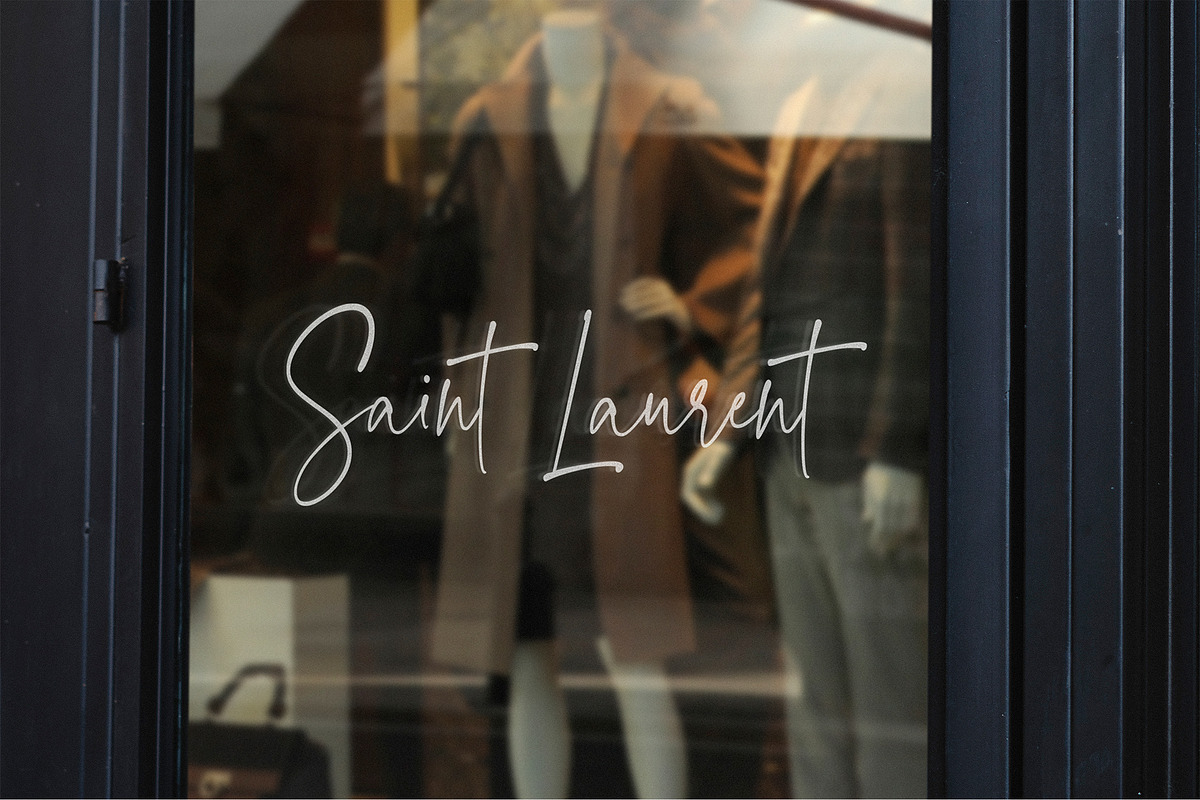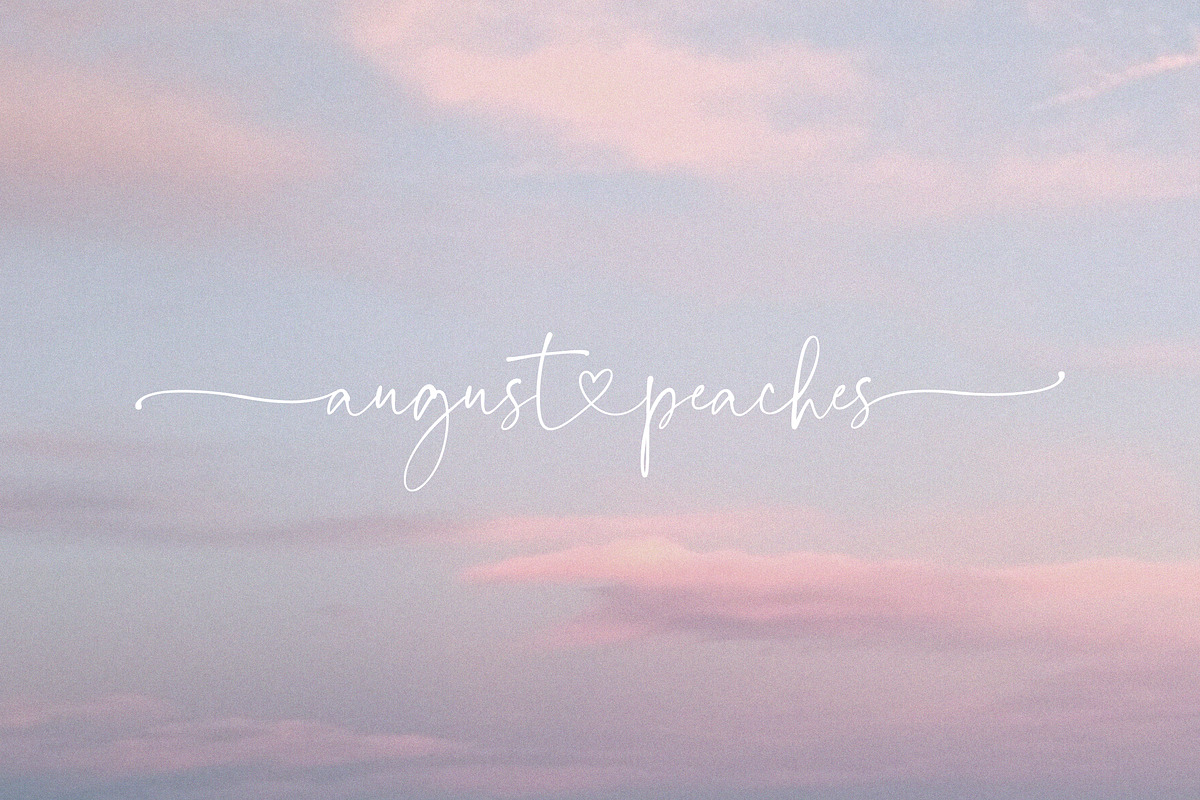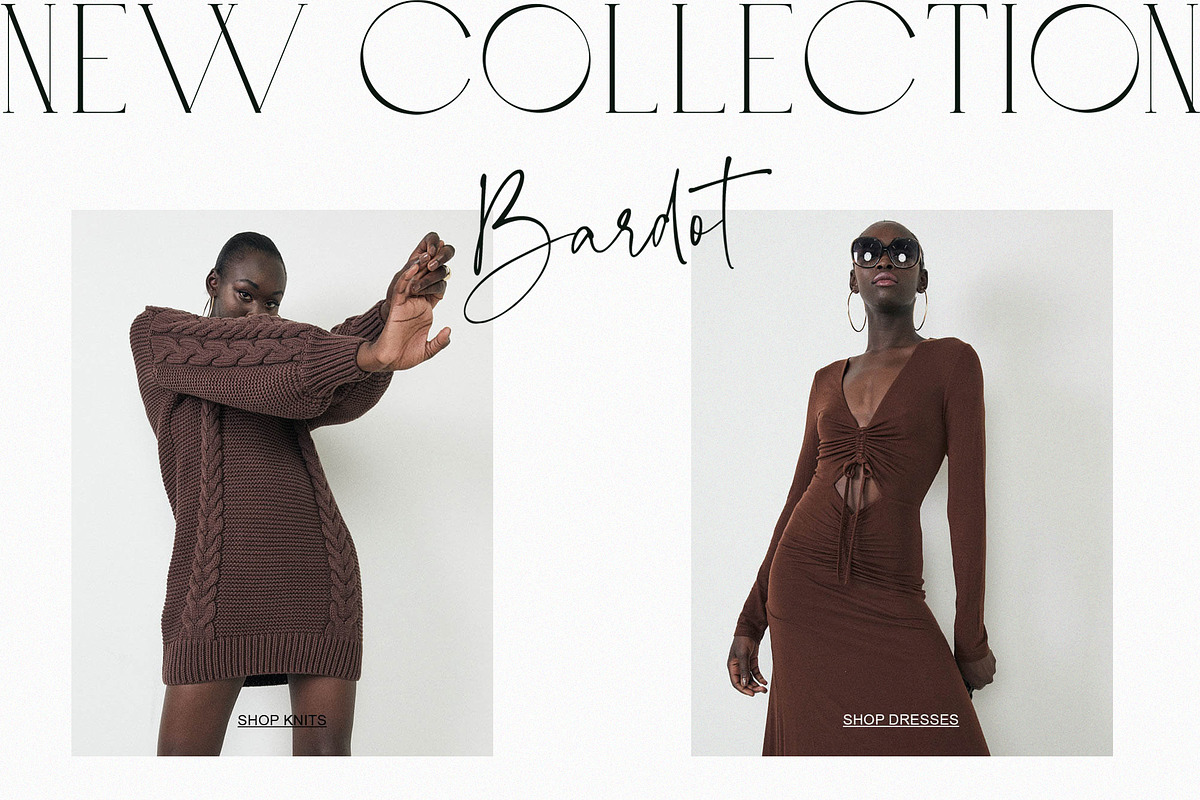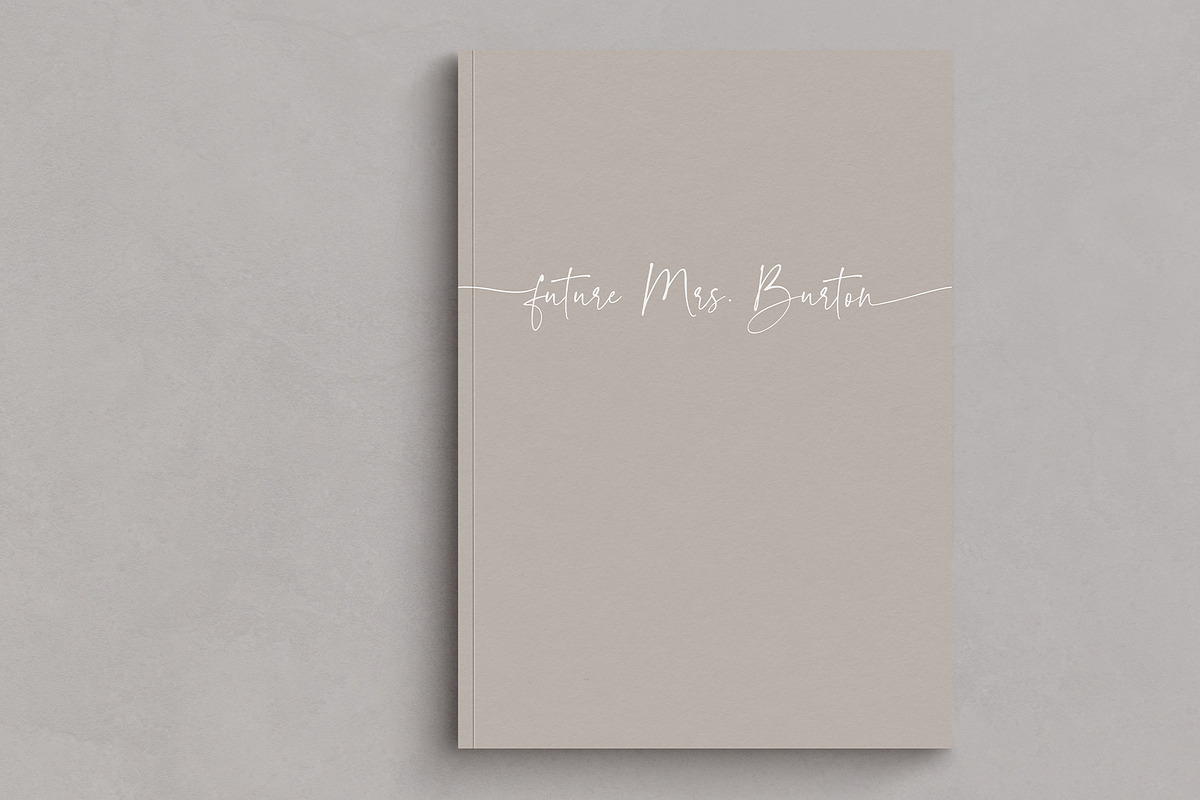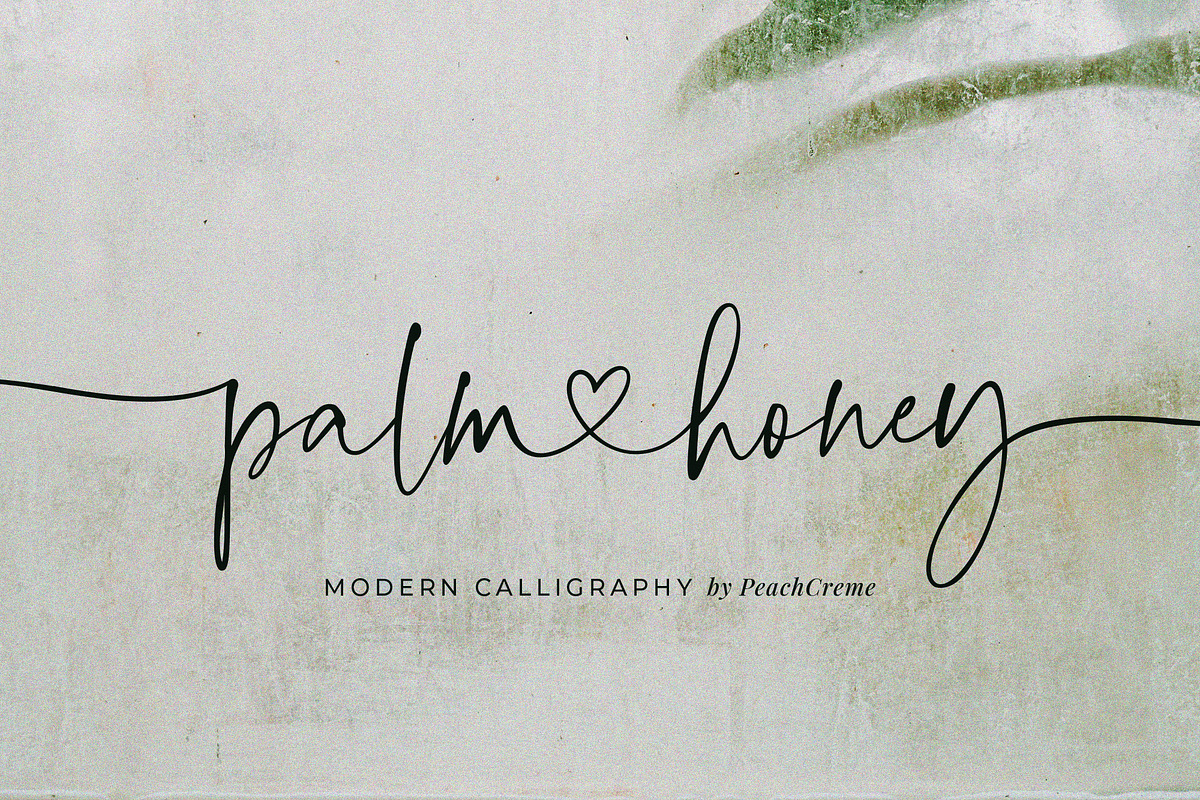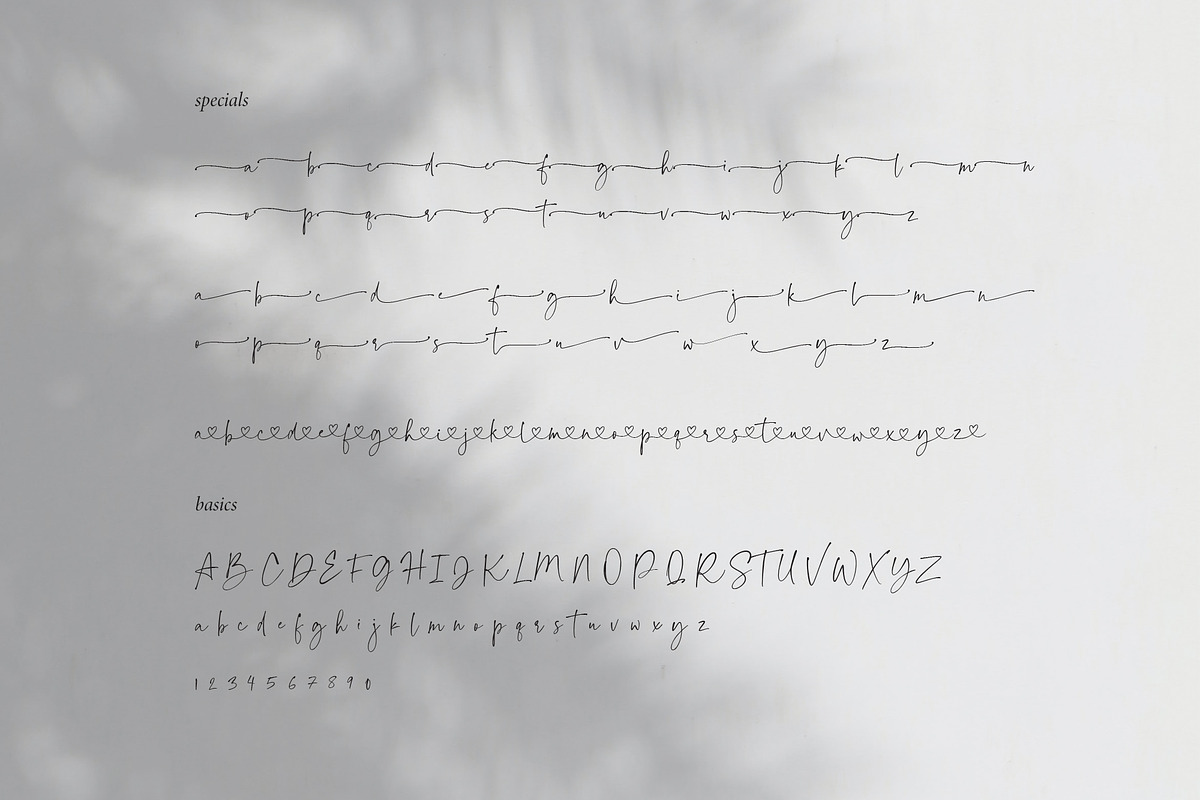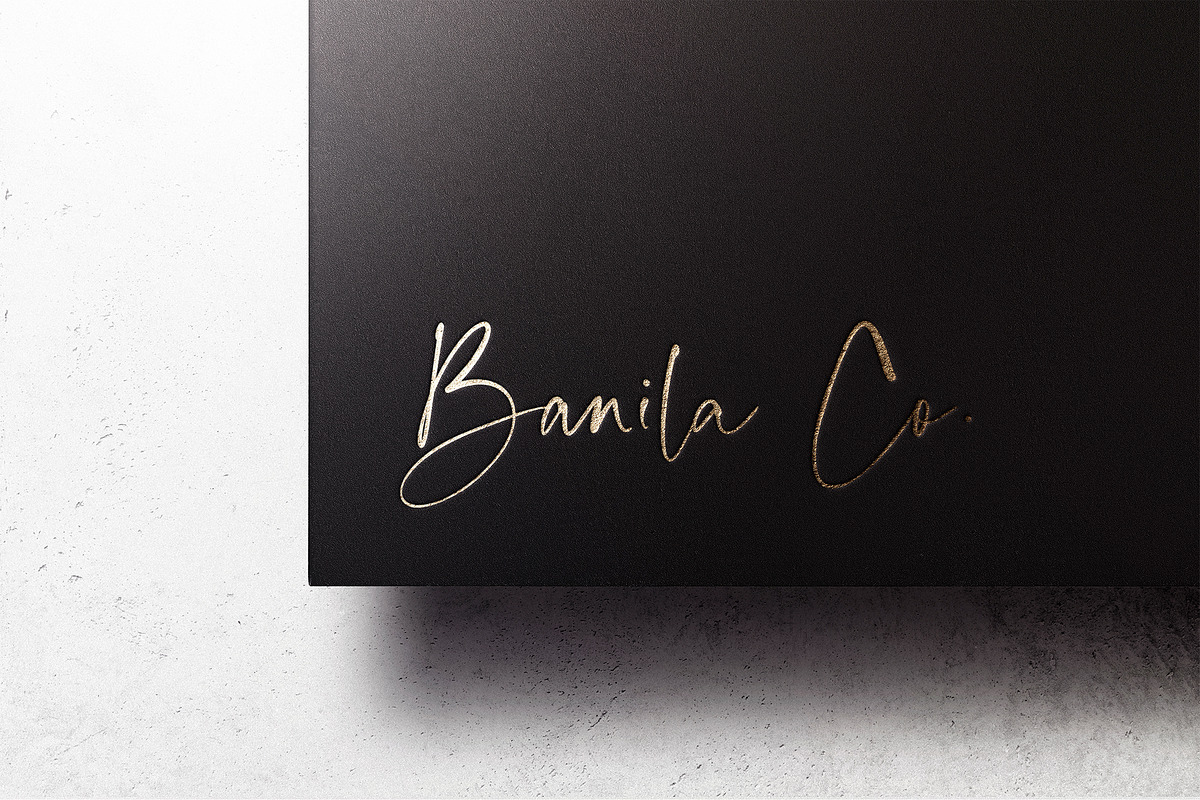
Palm Honey // Modern Lovely Script
We were quite often asked to create heart font with modern letters, stepping back a little from a calligraphic look (Hi, Sophia Ronald!)
Palm Honey beautifully works for modern wedding stationery projects.
Palm Honey has beginning lowercase, ending lowercase, connecting heart lowercase alternates.